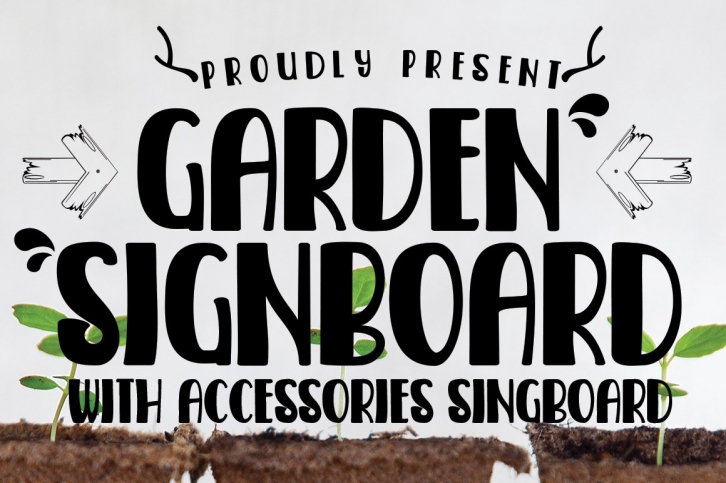
Garden Signboard is a trendy and unique font with an authentic style. It was designed by HD font studios and it's a great choice for creative people who need such a font. It was released on March 29, 2020 and the file size is 8.96 MB. Garden Signboard will add an organic vibe to any design idea!